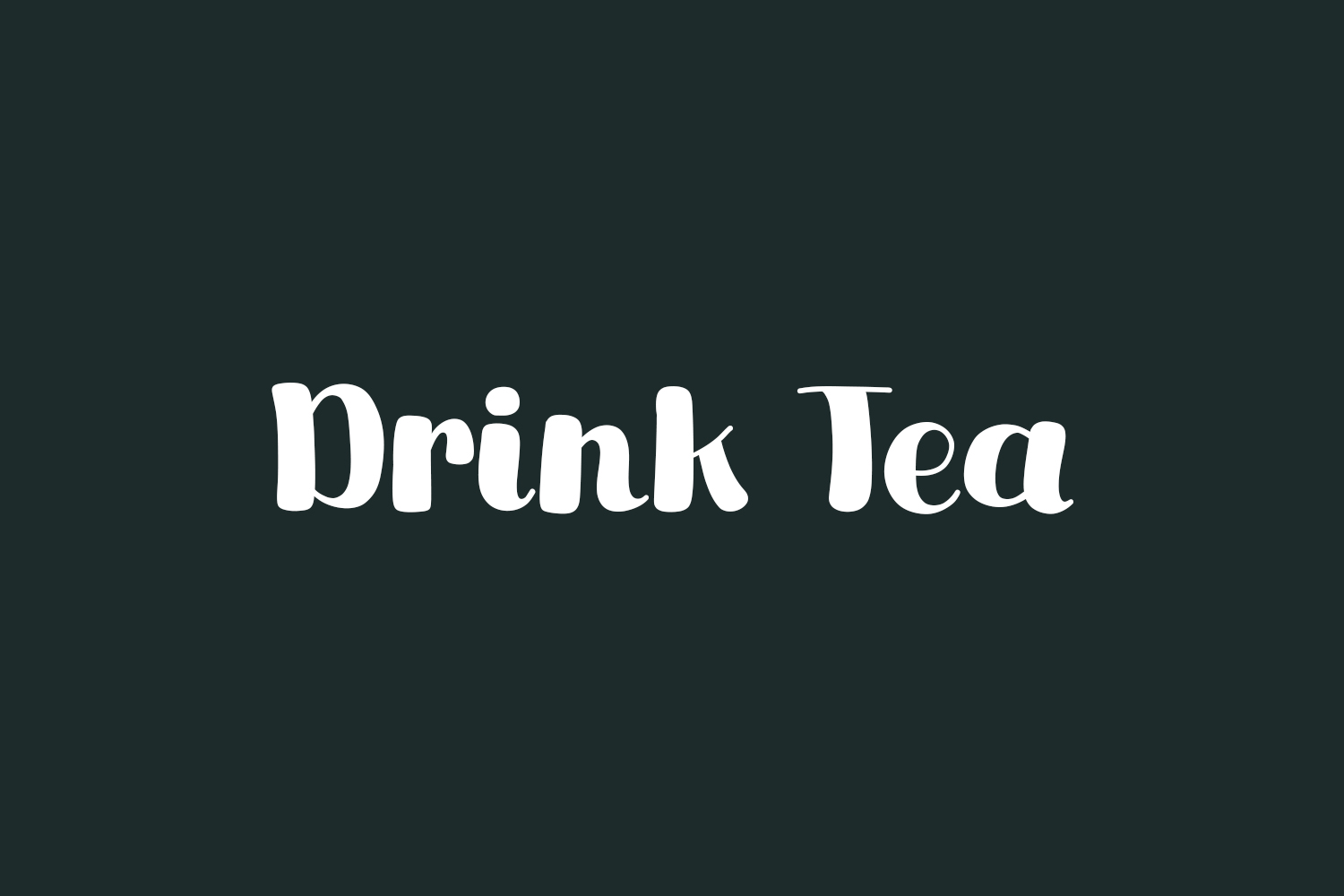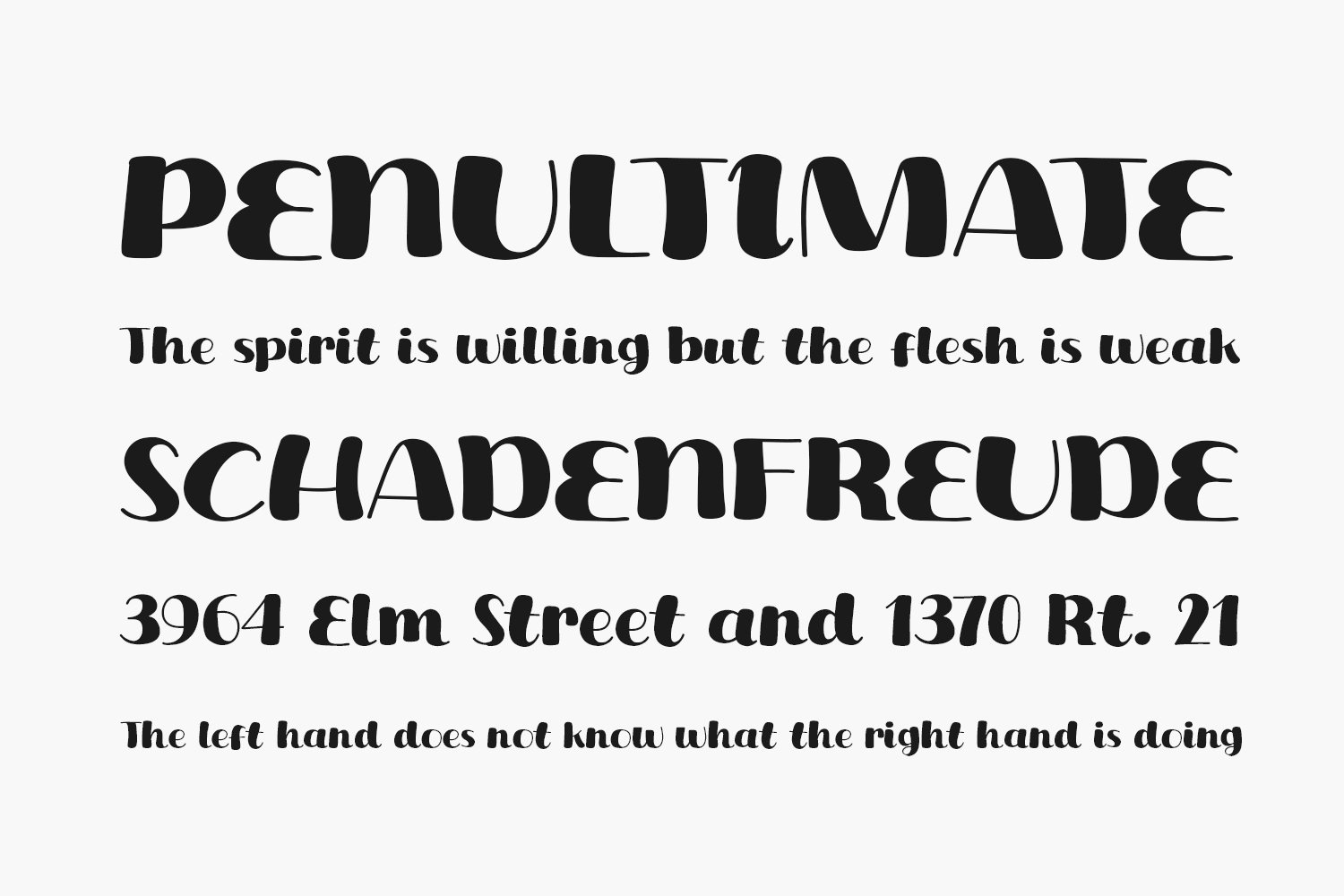
Sip on the elegance of Drink Tea Free Font, a contemporary and sophisticated display font tailored for posters, logos, magazines, book covers, banners, and more! Acquire this exceptional font to craft delightful designs that seamlessly align with a diverse range of projects. Elevate your creative concepts by incorporating this font and witness how it effortlessly makes them stand out. Drink Tea Free Font was designed by Khurasan and is free for personal or commercial use.